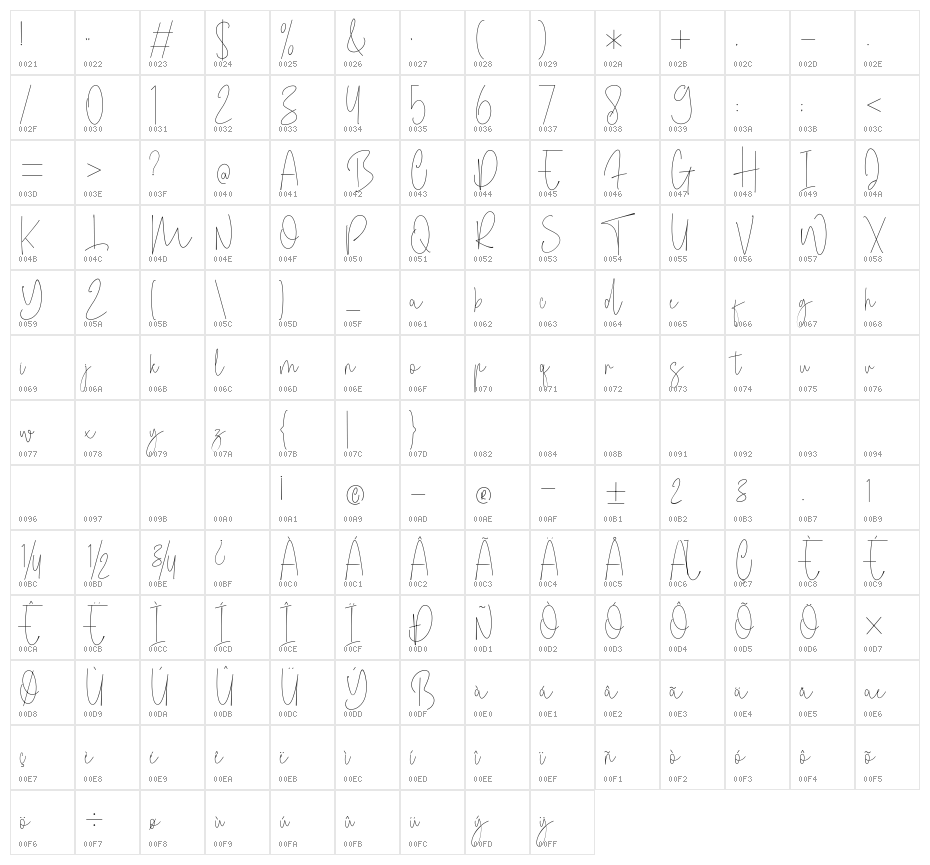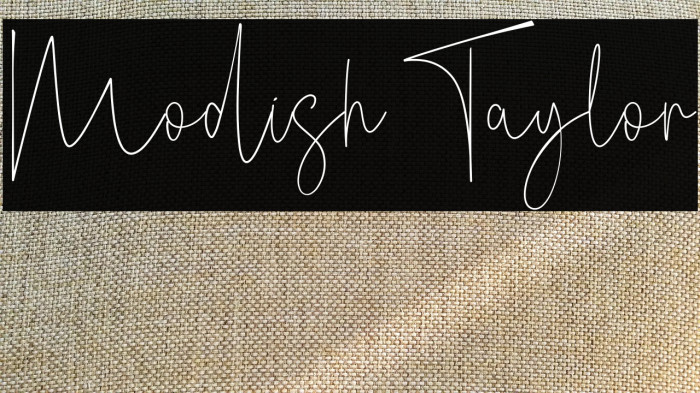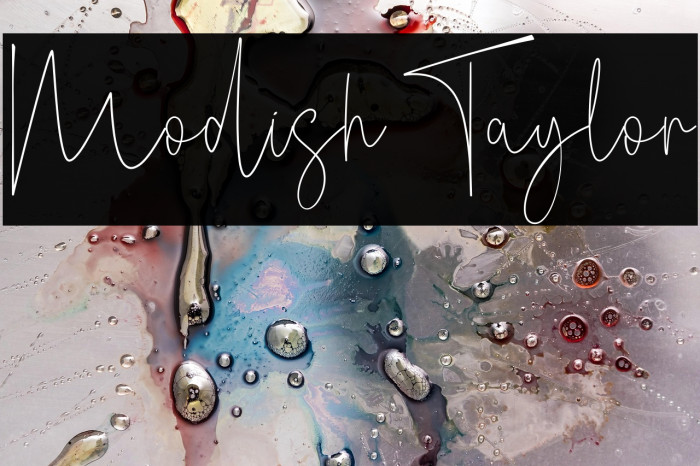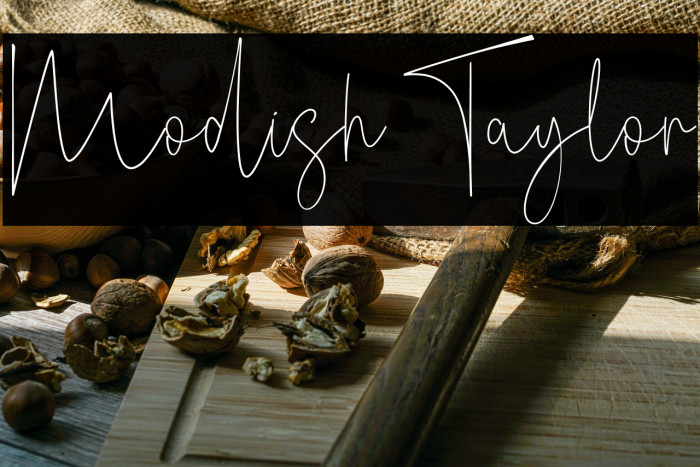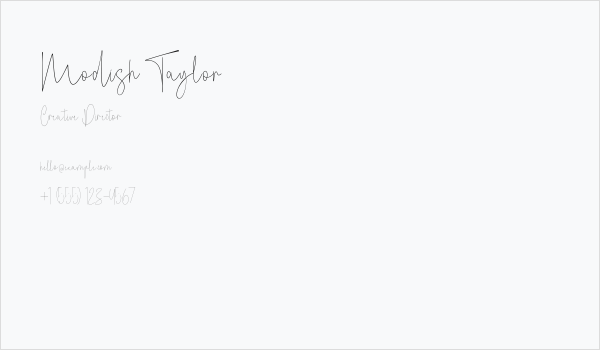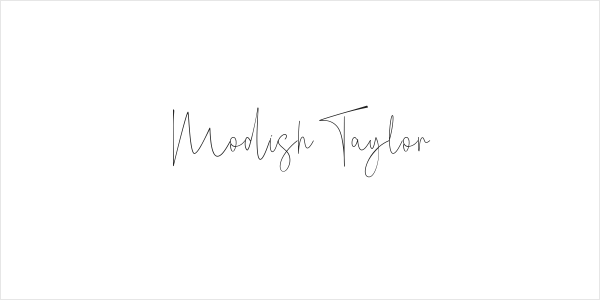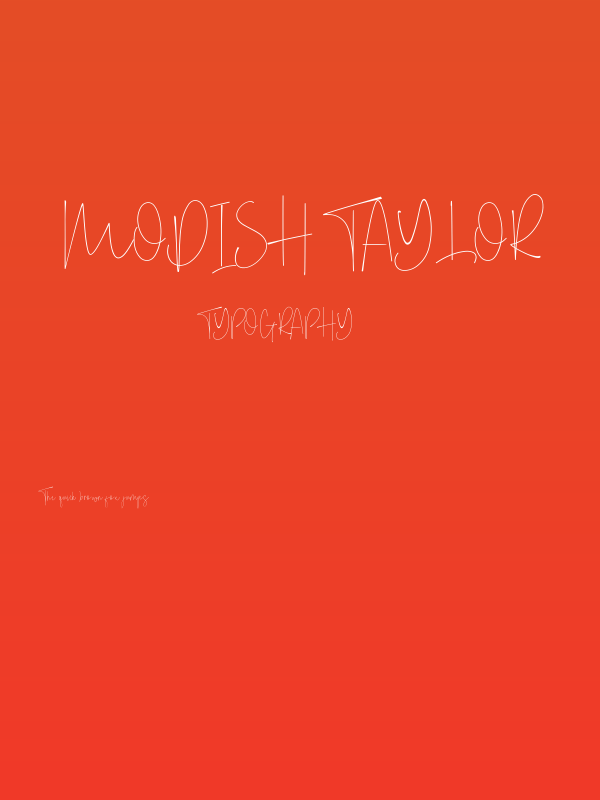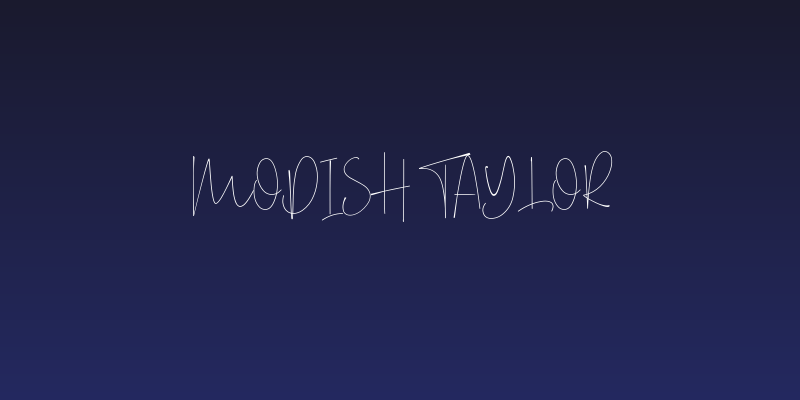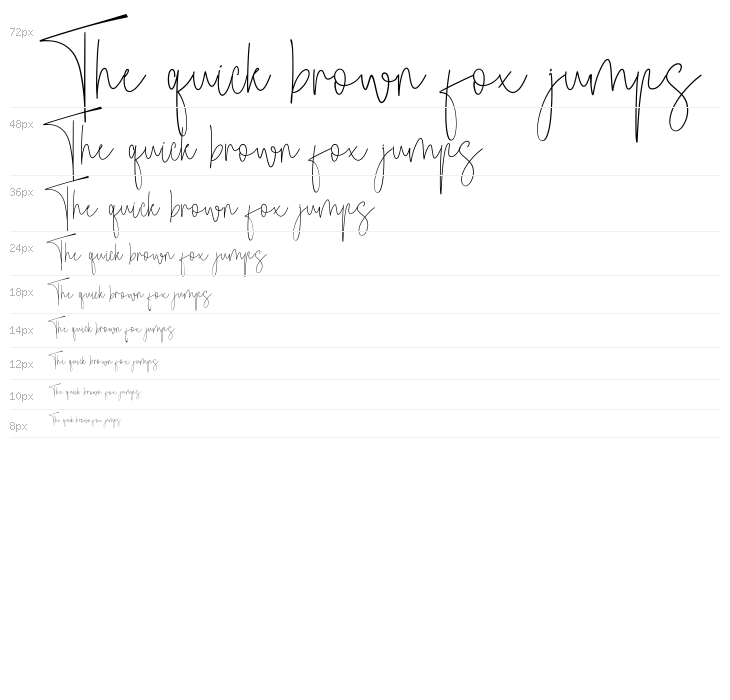
Modish Taylor Font
Modish Taylor Description
This font features a modern, handwritten style with a playful and artistic flair. The uppercase letters are tall and slender, with a slight slant that adds a dynamic feel. The lowercase letters are more fluid and cursive, maintaining a consistent stroke width that gives a cohesive look. Numbers and special characters follow the same elegant style, making them easily readable while retaining the font's unique character. The overall design is light and airy, perfect for adding a personal touch to any project.